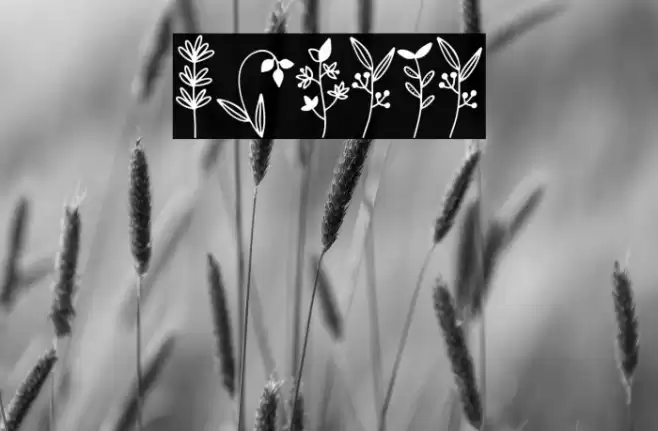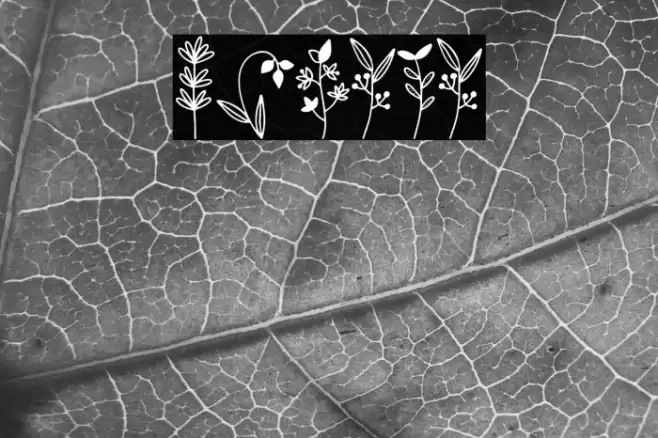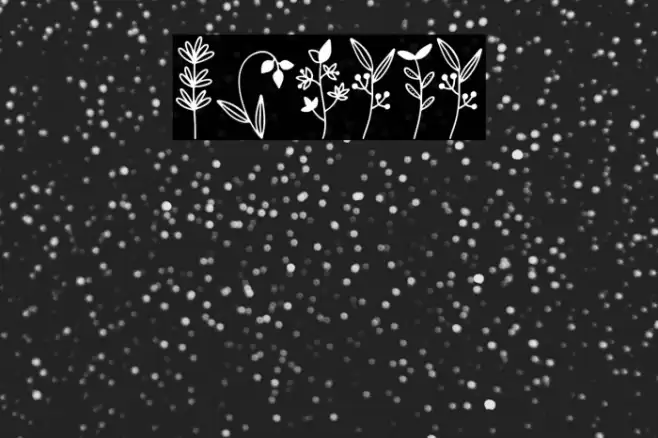
Botana Font
Botana Description
A decorative set of hand-drawn botanical illustrations featuring various stylized flowers and leaves with thin, delicate lines and occasional solid black fills.
Hand-drawn botanical illustrations with a whimsical and delicate style from Dingbats fonts.
- Font: Botana
- Proposed Projects: Ideal for greeting cards, invitations, branding for eco-friendly or floral businesses, textile patterns, and decorative accents in print or digital media.
- Weight: Light
- Overall Style: Whimsical, Natural, Handcrafted
- Use Case: Decorative elements, Logos, Pattern design, Illustrations